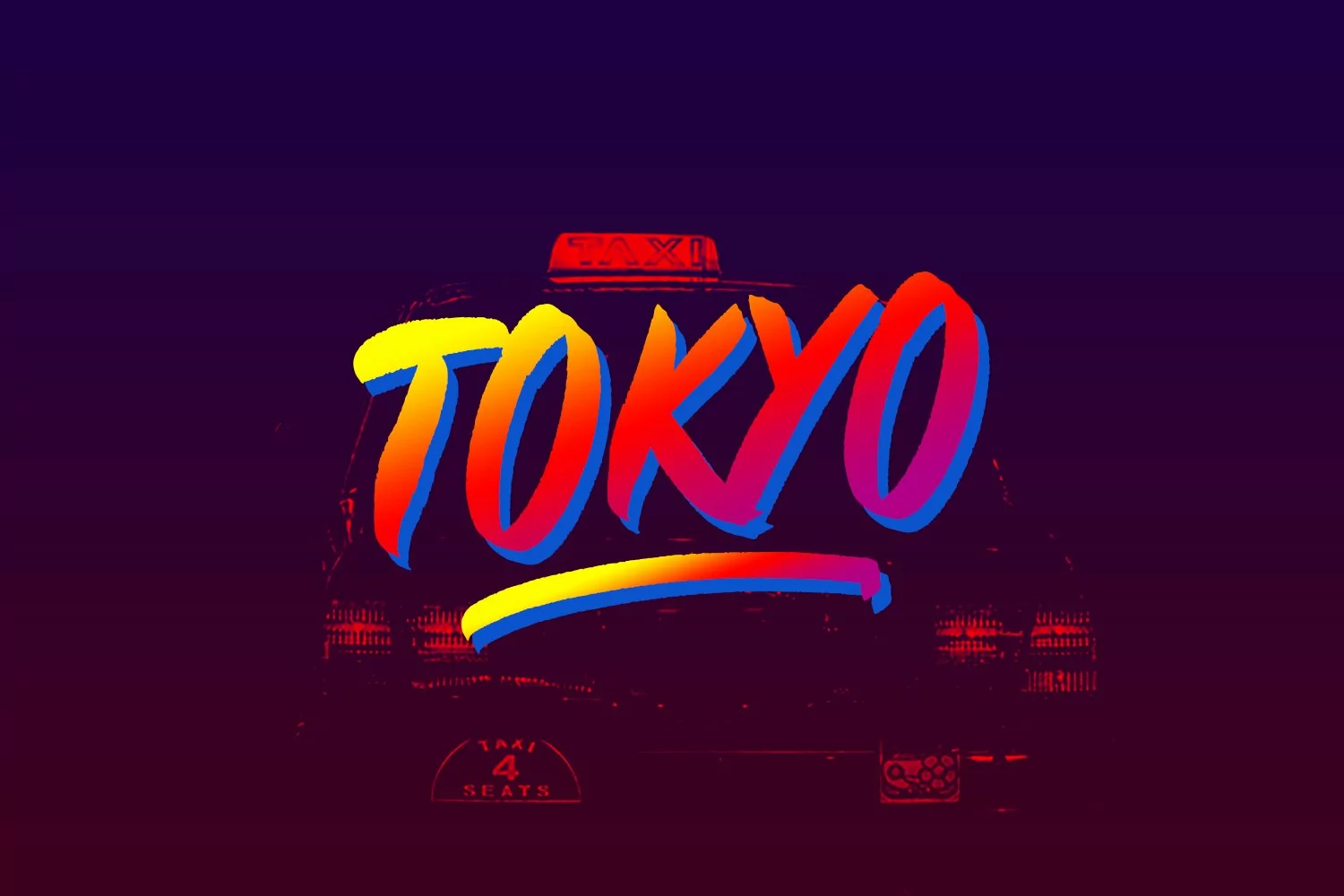
Give your designs an authentic brush handcrafted feel. "Rectoverso Grunge Display Font Extra Swash" is perfectly suited to signature, stationery, logo, typography quotes, magazine or book cover, website header, flyer, clothing, branding, packaging design and more.